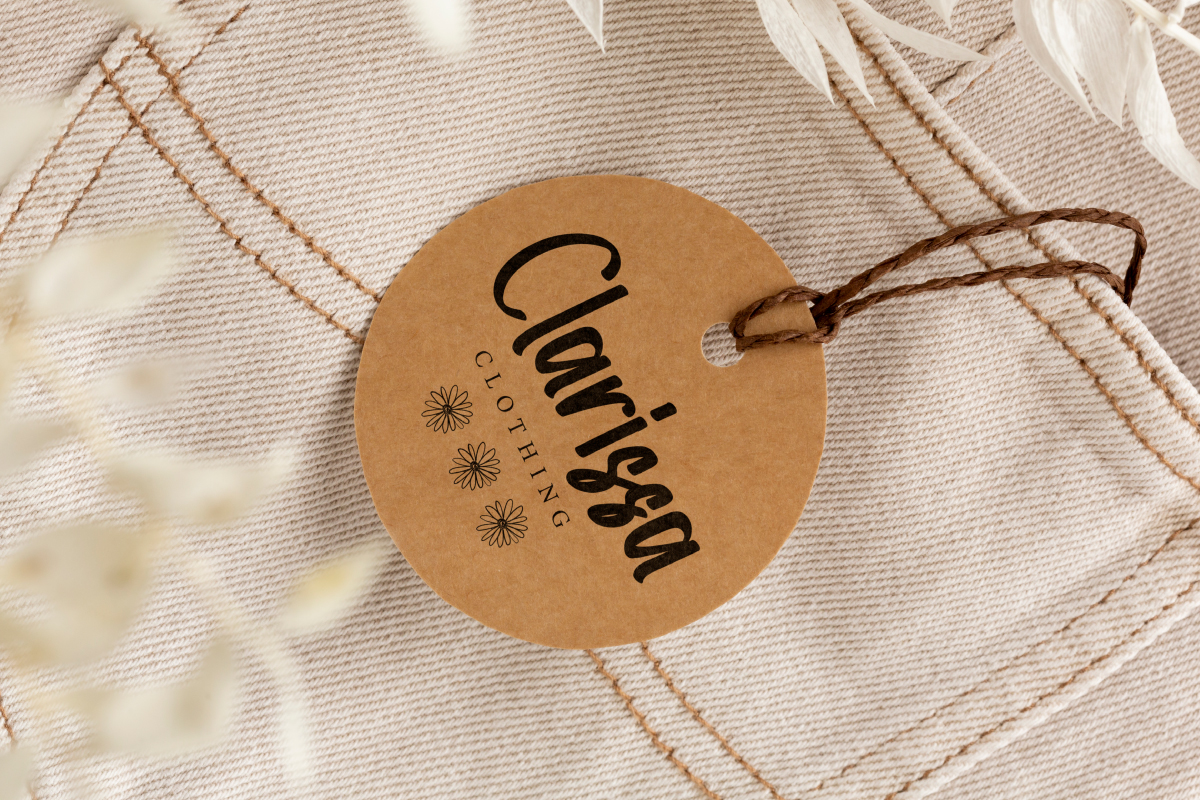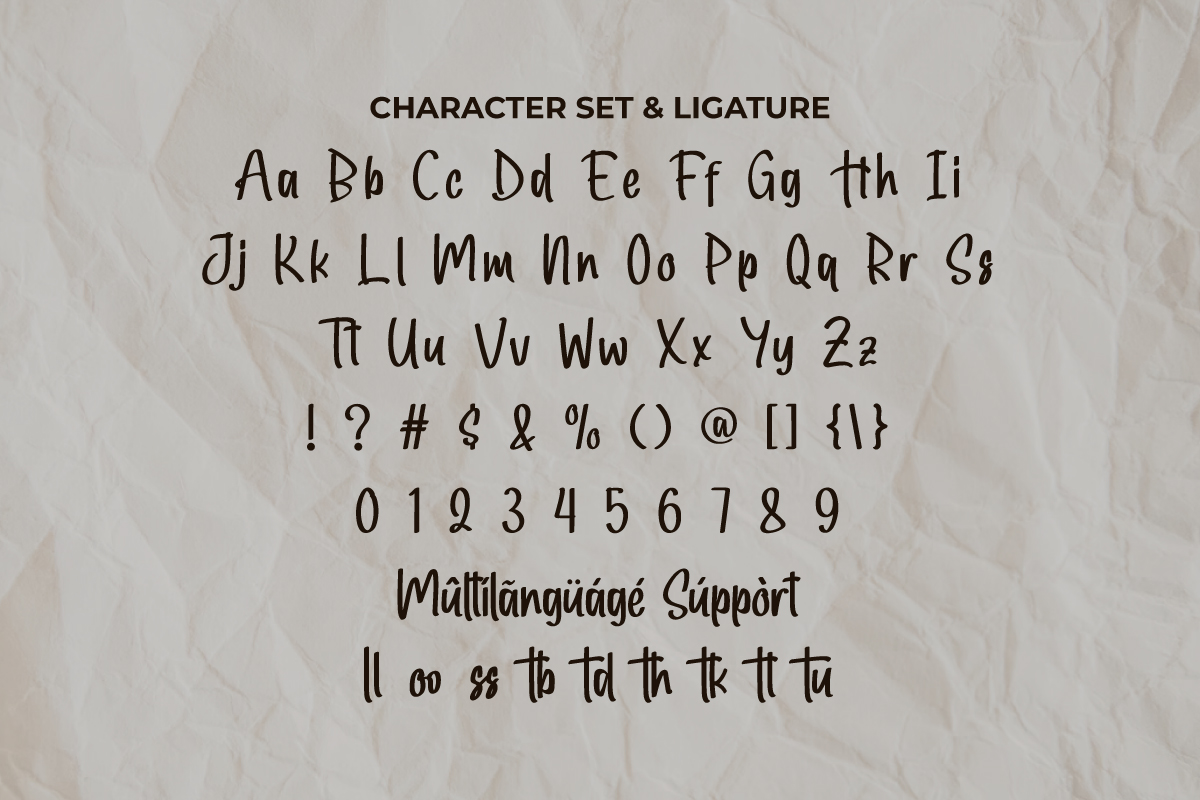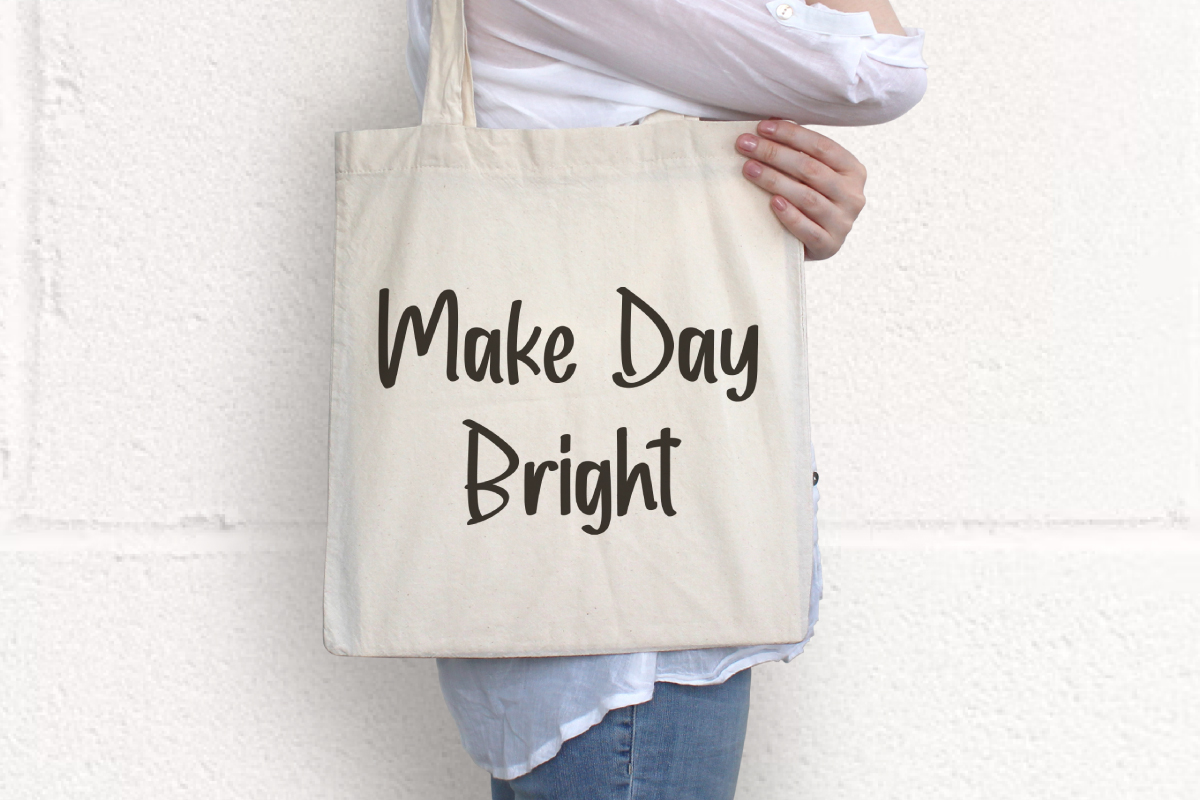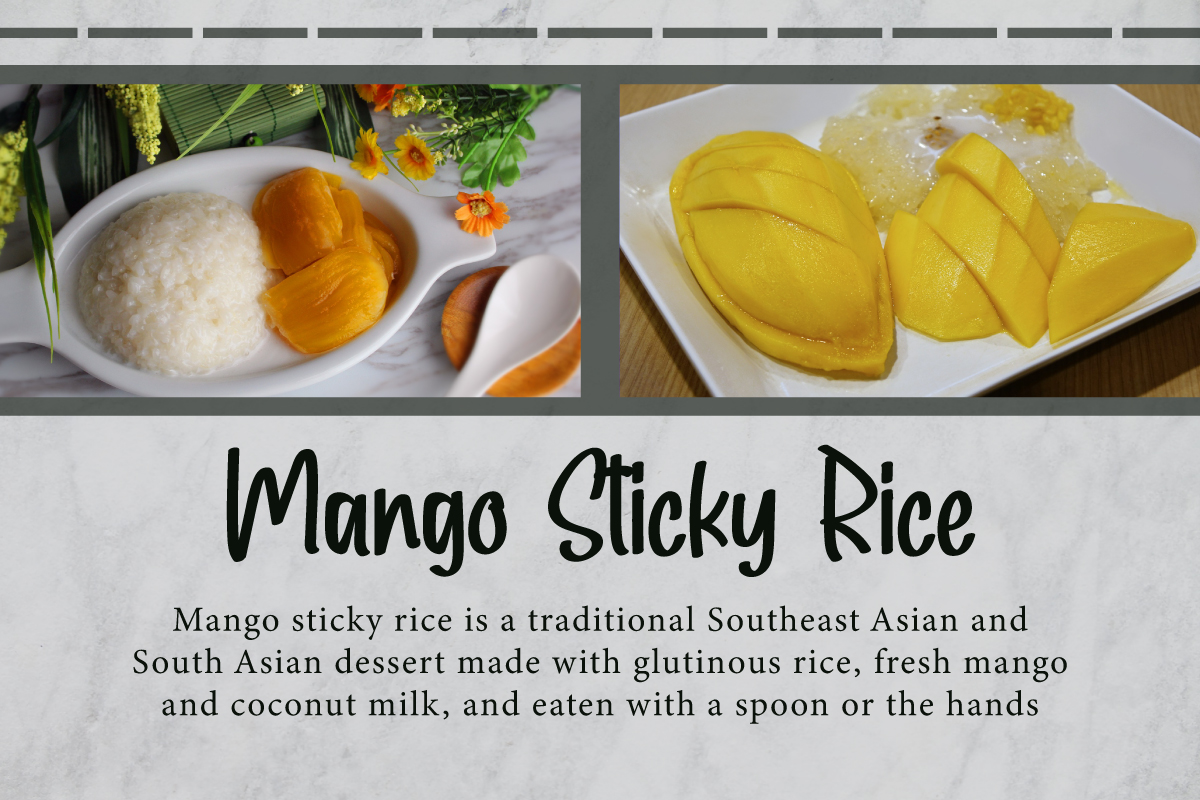
Ares Mitchell Font
Ares Mitchell Script Font
This typeface is well crafted so it has a natural look that won’t disappoint. This font would be perfect for any project that requires a beautiful touch such as brand logo, brochure, creating logo design, custom design on product, label, menu book, quote, screen printing designs, etc.